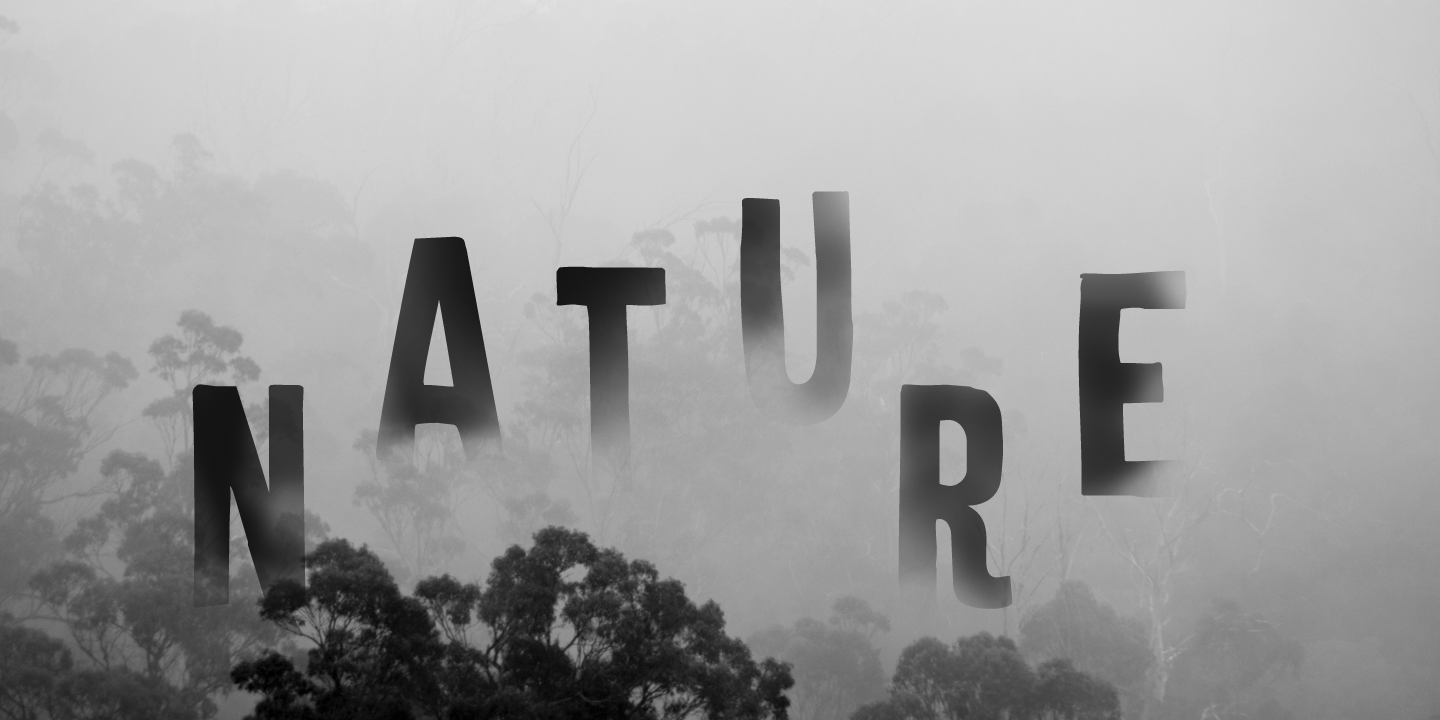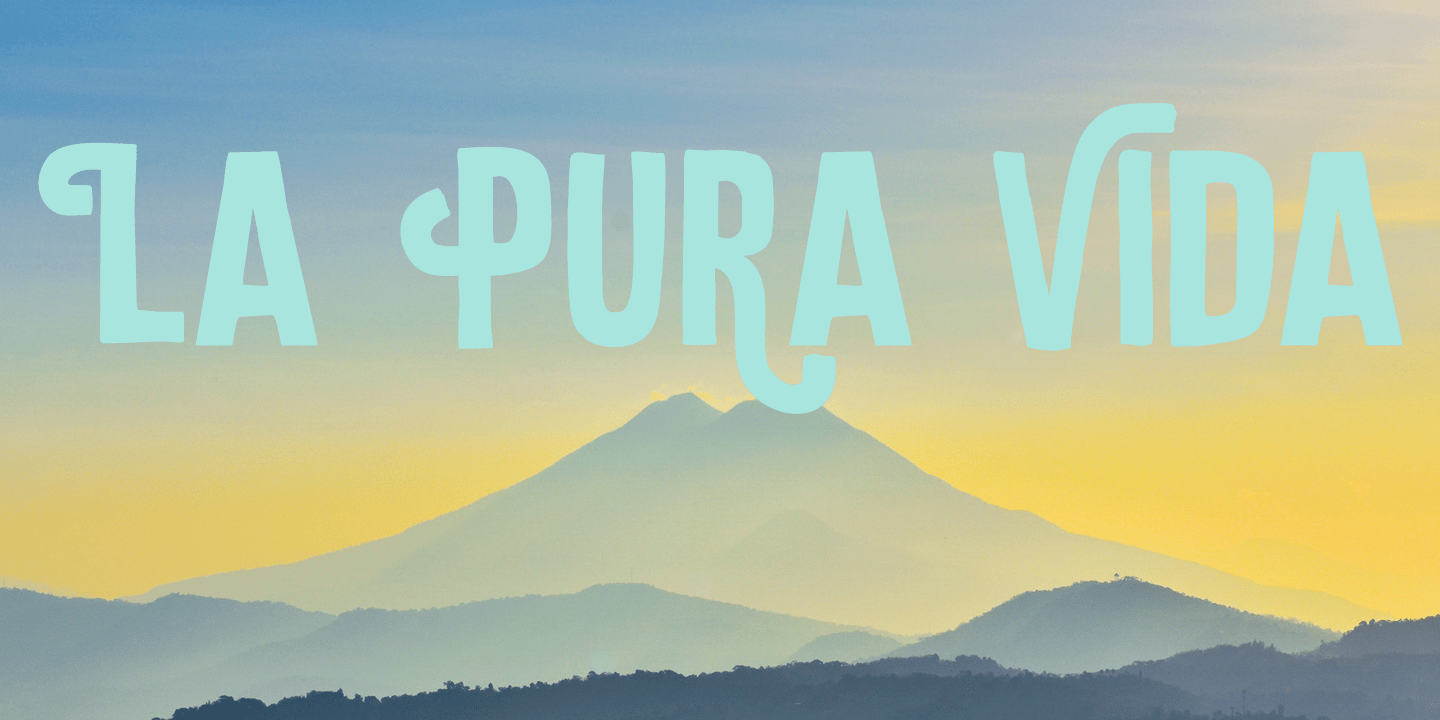
About Silent Echo
Silent Echo – the name just popped up! I didn\’t hear and echo, nor is it very silent here (with three kids running around). Silent Echo is a handmade all caps font. Quite neat, very legible and full of swashes!